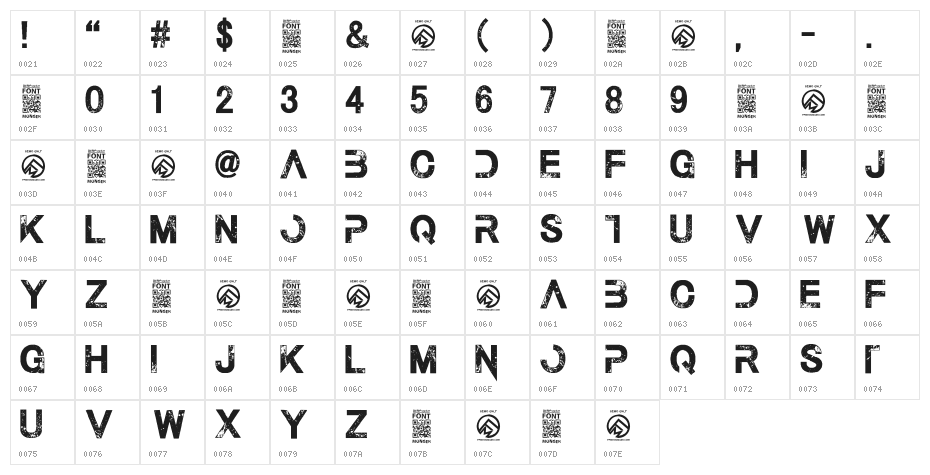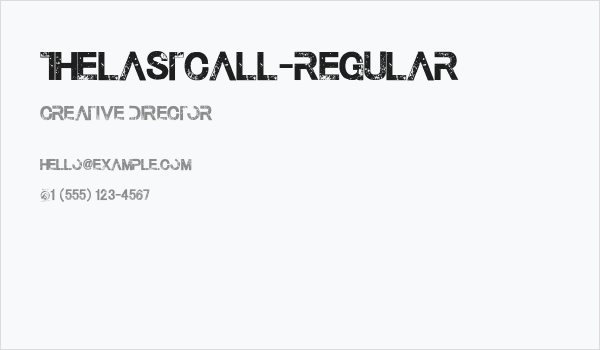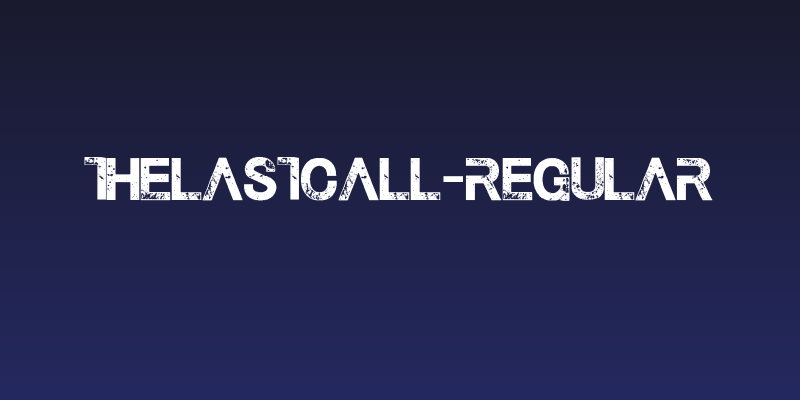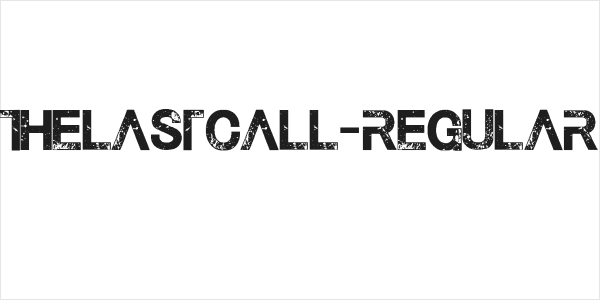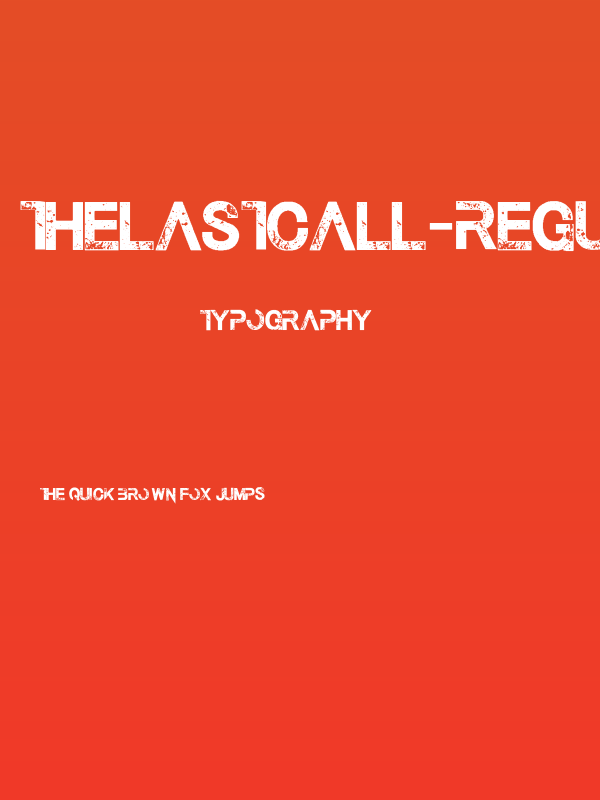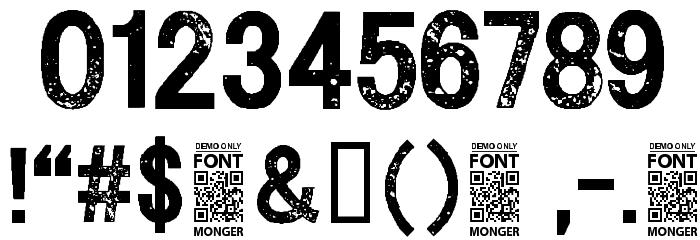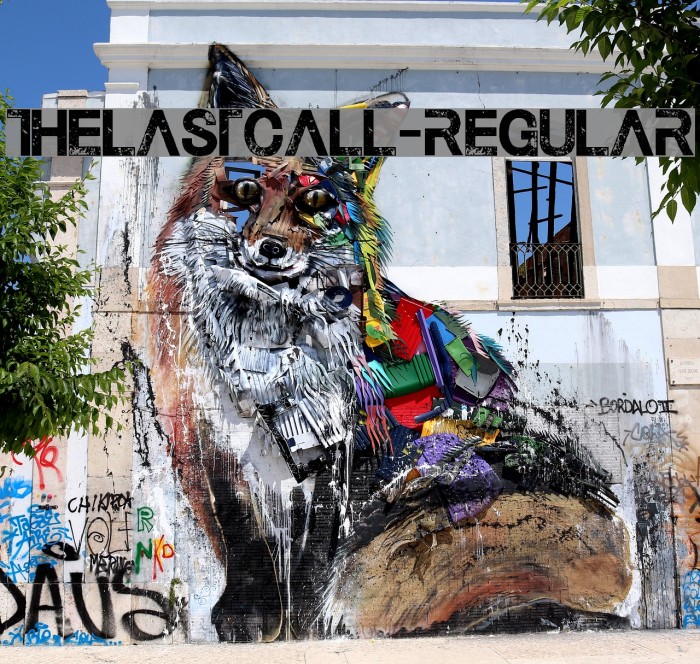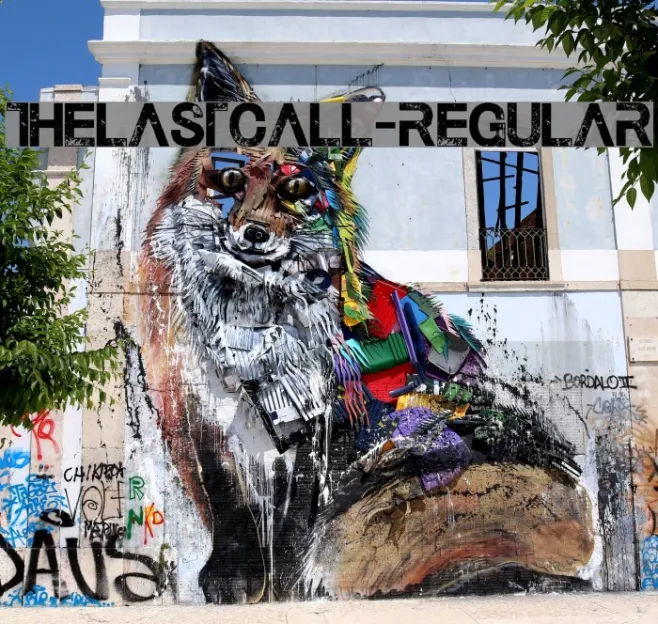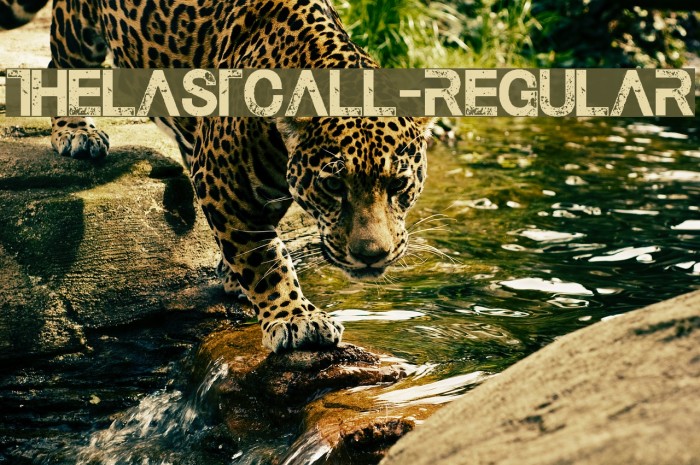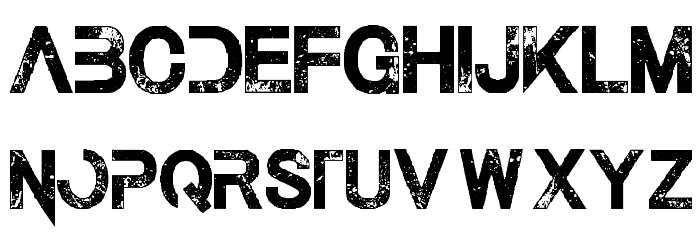
TheLastCall-Regular Font
TheLastCall-Regular Description
This font features a bold, distressed style with a grunge texture that gives it a rugged and worn appearance. The characters are uppercase and maintain a consistent weight throughout, with a slightly condensed width. The texture adds a unique, vintage feel, making it ideal for projects that require a touch of edginess or a retro vibe. The numbers and special characters follow the same design, ensuring uniformity across all text elements. The overall look is both striking and memorable, perfect for making a statement.
| Proposed Projects | Ideal for posters, album covers, branding, and any design needing a bold, edgy look. |